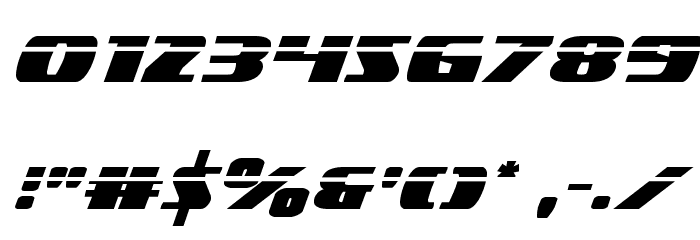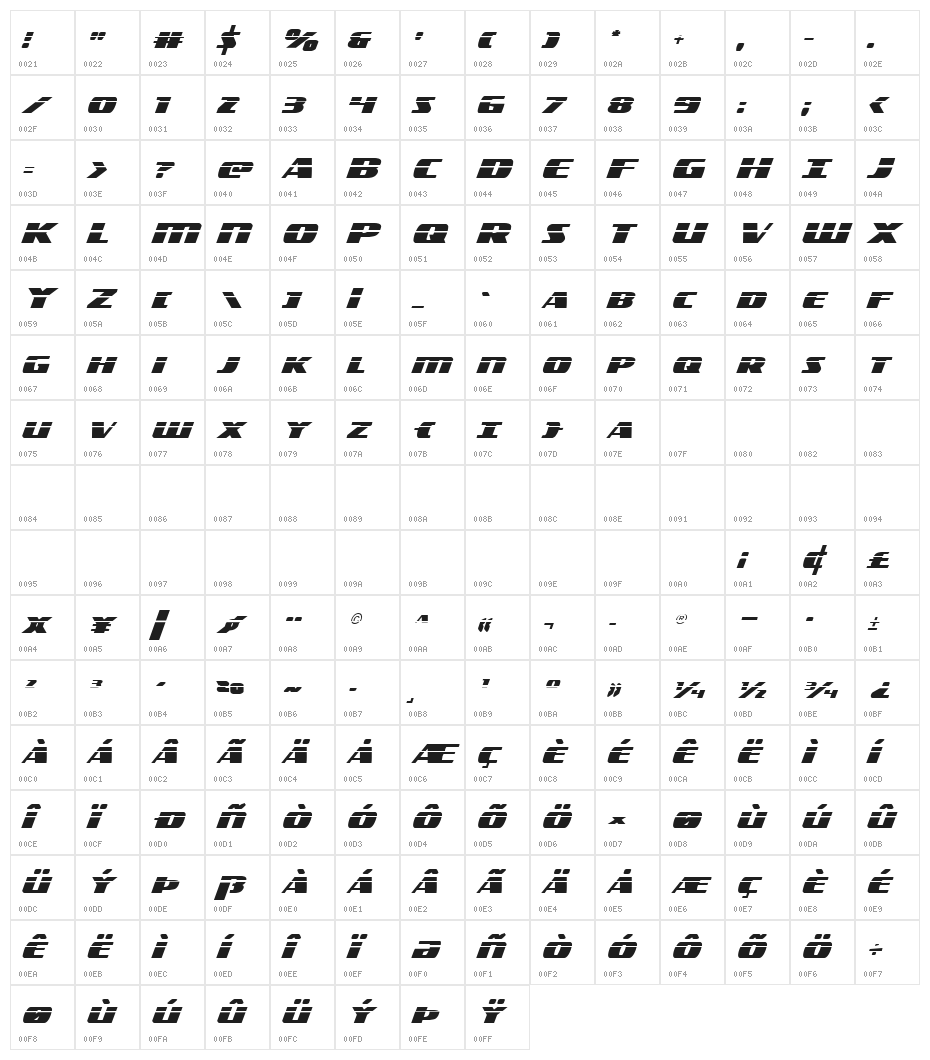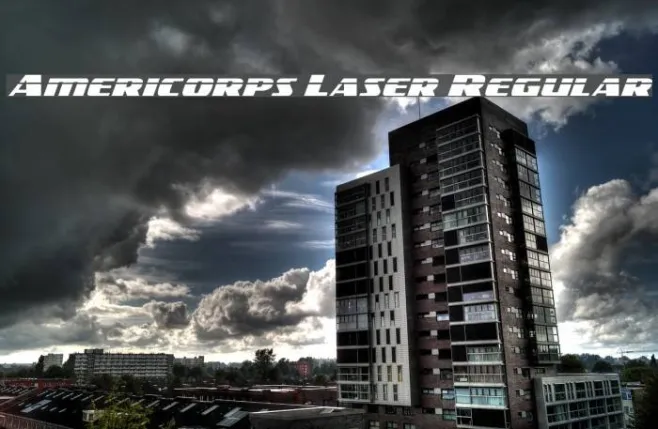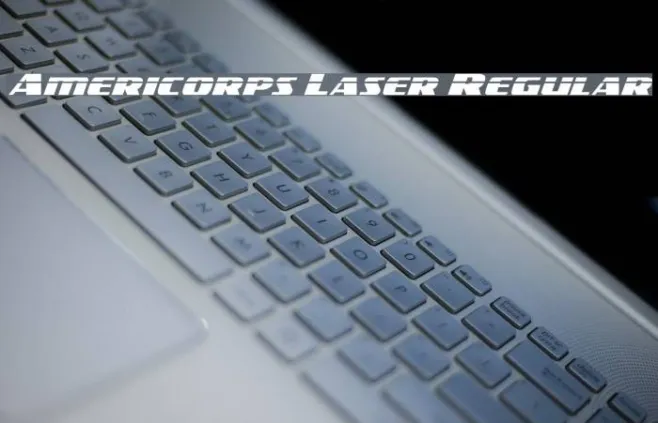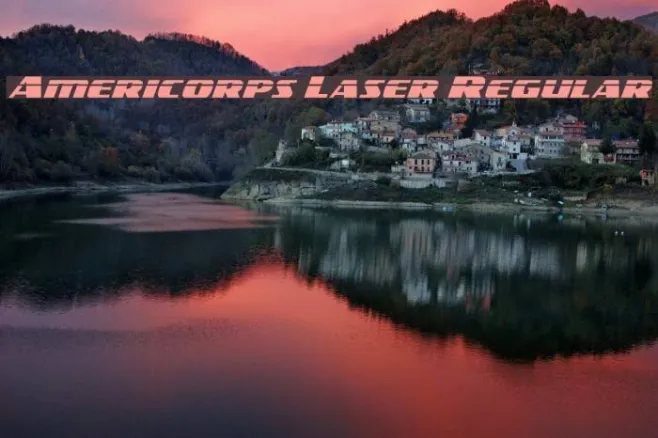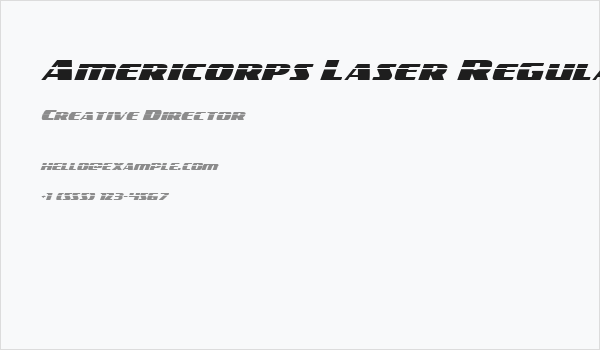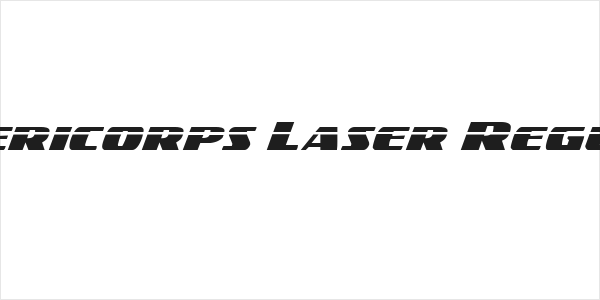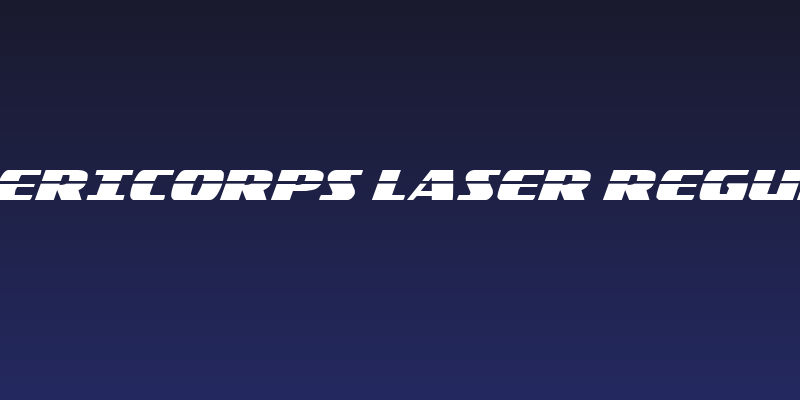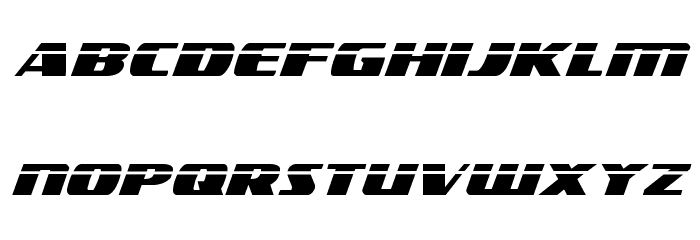
Americorps Laser Regular Font
Americorps Laser Regular Description
This font features a bold, futuristic style with sharp, angular edges and a distinct slant, giving it a dynamic and energetic appearance. The characters are wide and have a strong presence, making them ideal for attention-grabbing designs. The uppercase letters are particularly striking, with a consistent geometric structure that enhances the font's modern aesthetic. The numbers and special characters maintain the same bold and angular design, ensuring uniformity across all glyphs. This font's unique style is perfect for projects that require a modern and impactful look.
| Proposed Projects | Ideal for sci-fi themed designs, video game graphics, tech branding, and futuristic posters. |